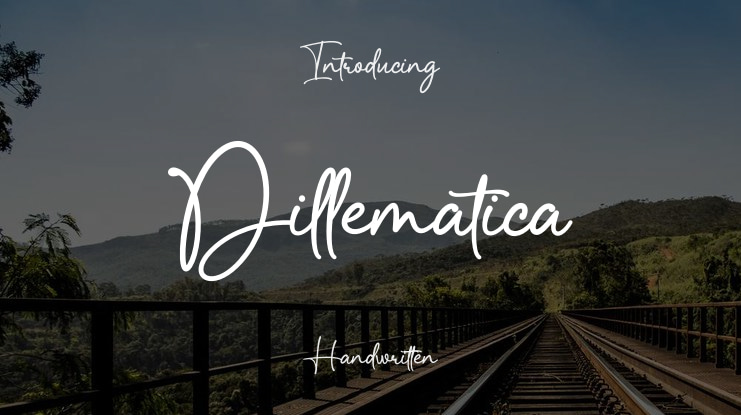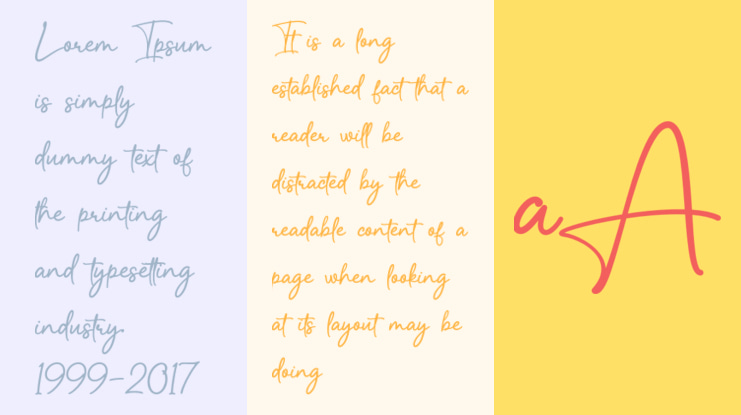
Dillematica Font
INTRODUCING Dillematica Signature Font
Dillematica is a Signature Font that adds a elegant, versatile touch to everything from branding and social media to invitations and packaging.